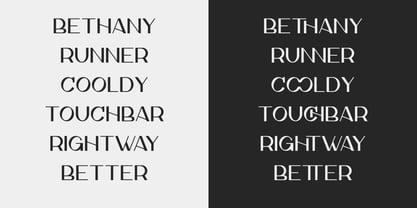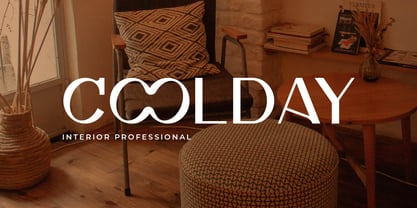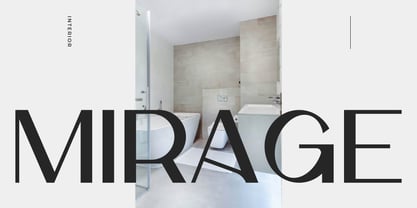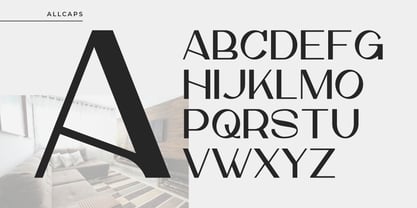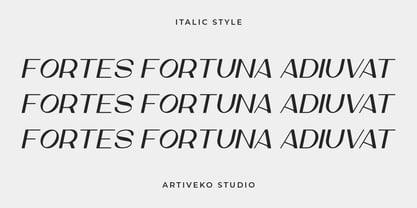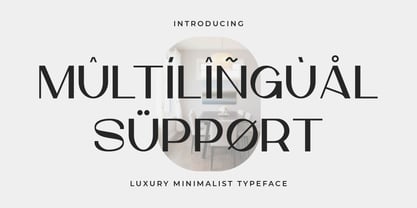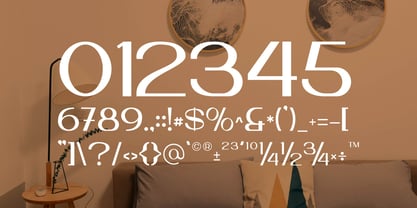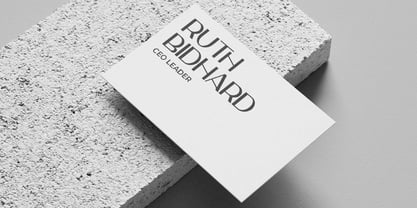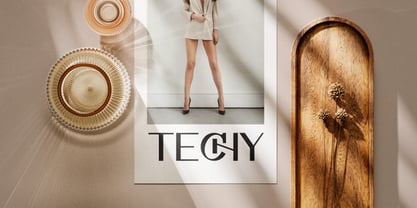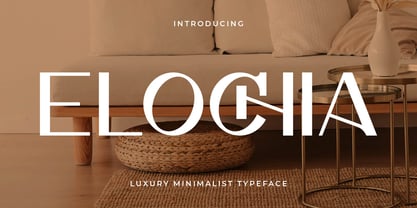
Elochia
by Artiveko
The Elochia Font Family was designed by Iwan Alwan and published by Artiveko. Elochia contains 2 styles and family package options.
Elochia is a feminine luxury serif font that embodies elegance, charm, and timeless sophistication. With its delicate curves, refined serifs, and graceful contrast between thick and thin strokes, Elochia is designed to capture attention while exuding softness and confidence. It’s the perfect choice for high-end branding, wedding invitations, fashion editorials, skincare packaging, and lifestyle logos.
Each letterform in Elochia is crafted with love for detail — blending classical beauty with a modern, feminine touch. The font comes with a full set of uppercase and lowercase characters, multilingual support, stylish ligatures, and elegant alternates, giving designers the creative freedom to craft truly luxurious typographic compositions. Elochia doesn’t just speak — it whispers sophistication and radiates beauty. Let your designs bloom with Elochia, where femininity meets finesse.